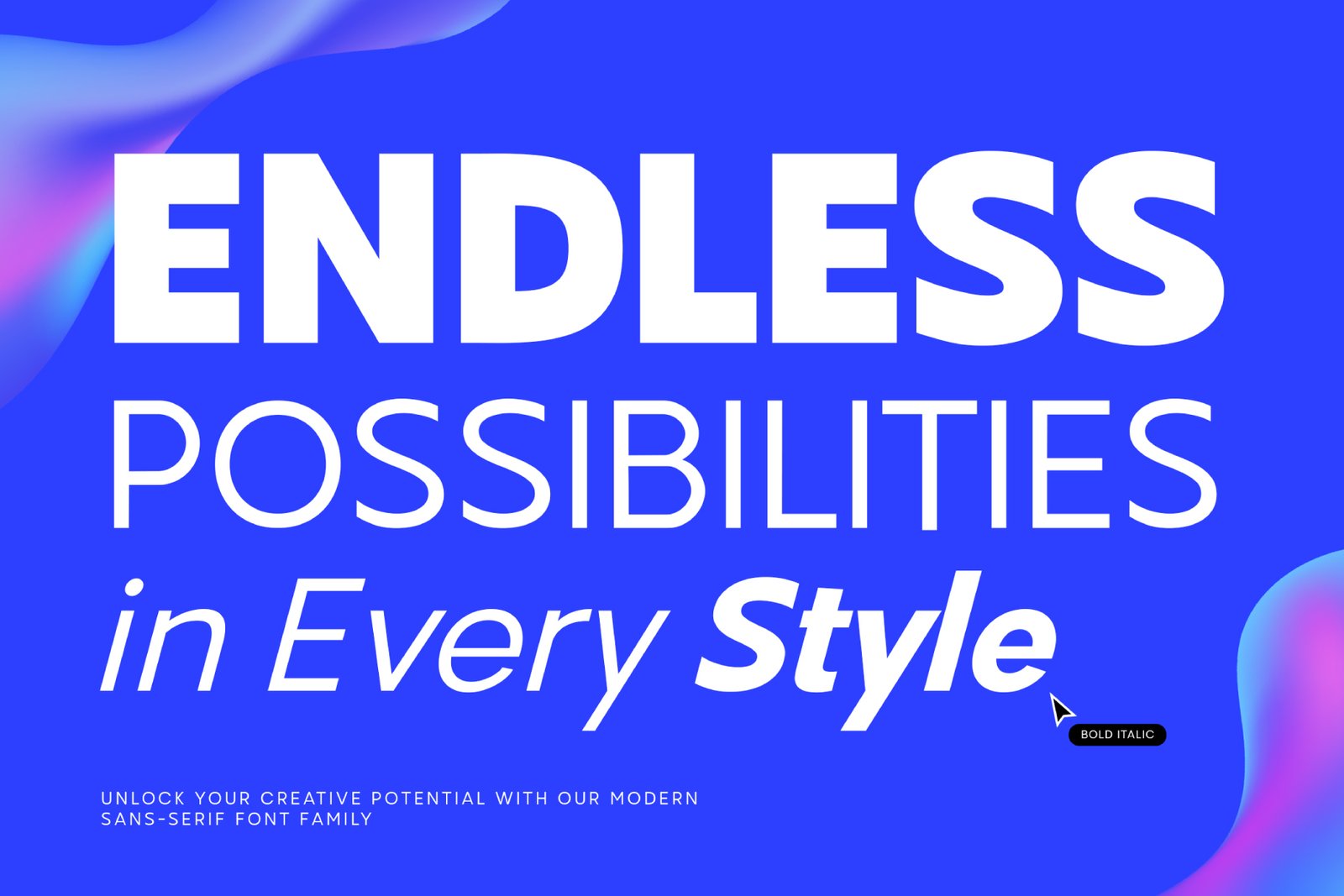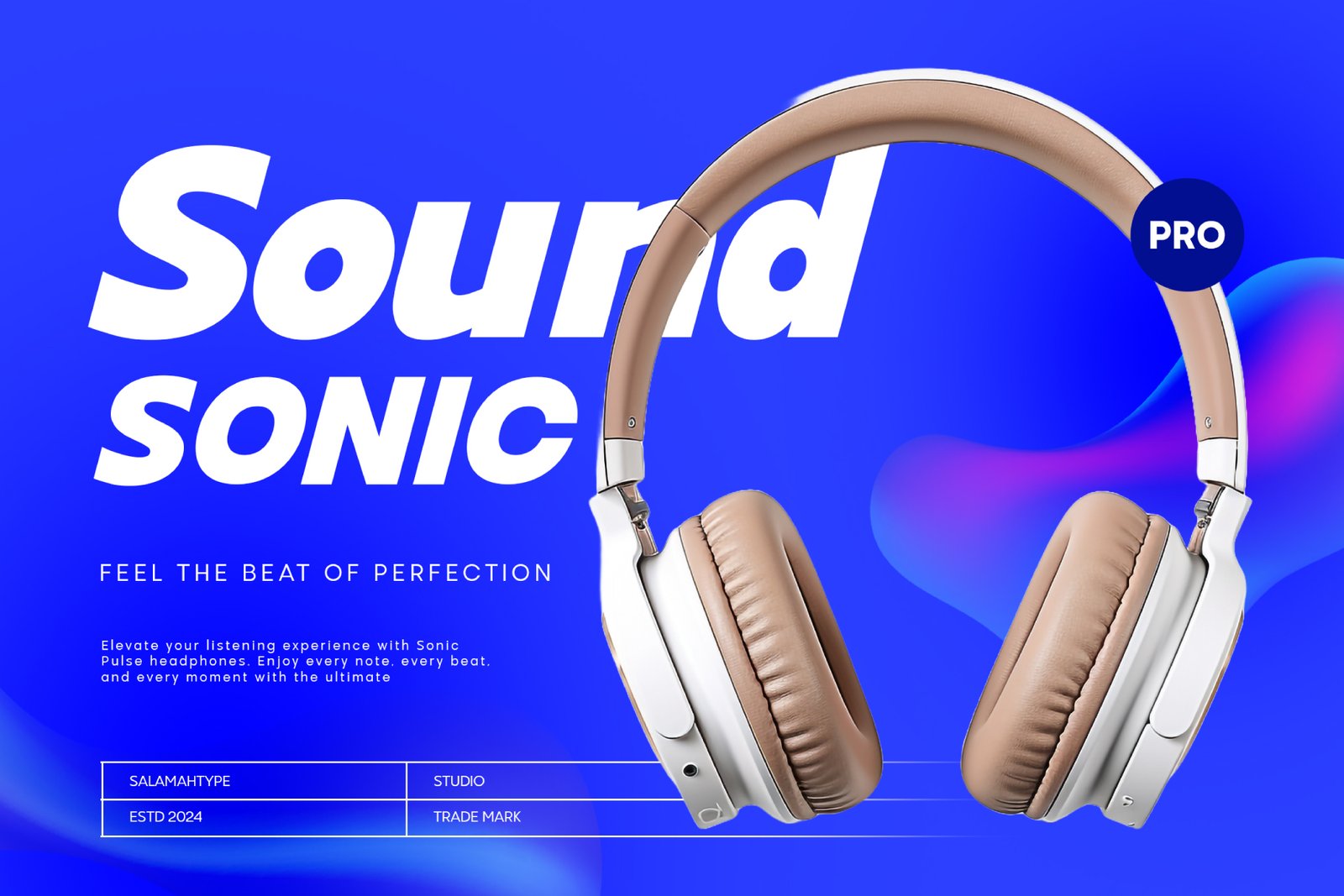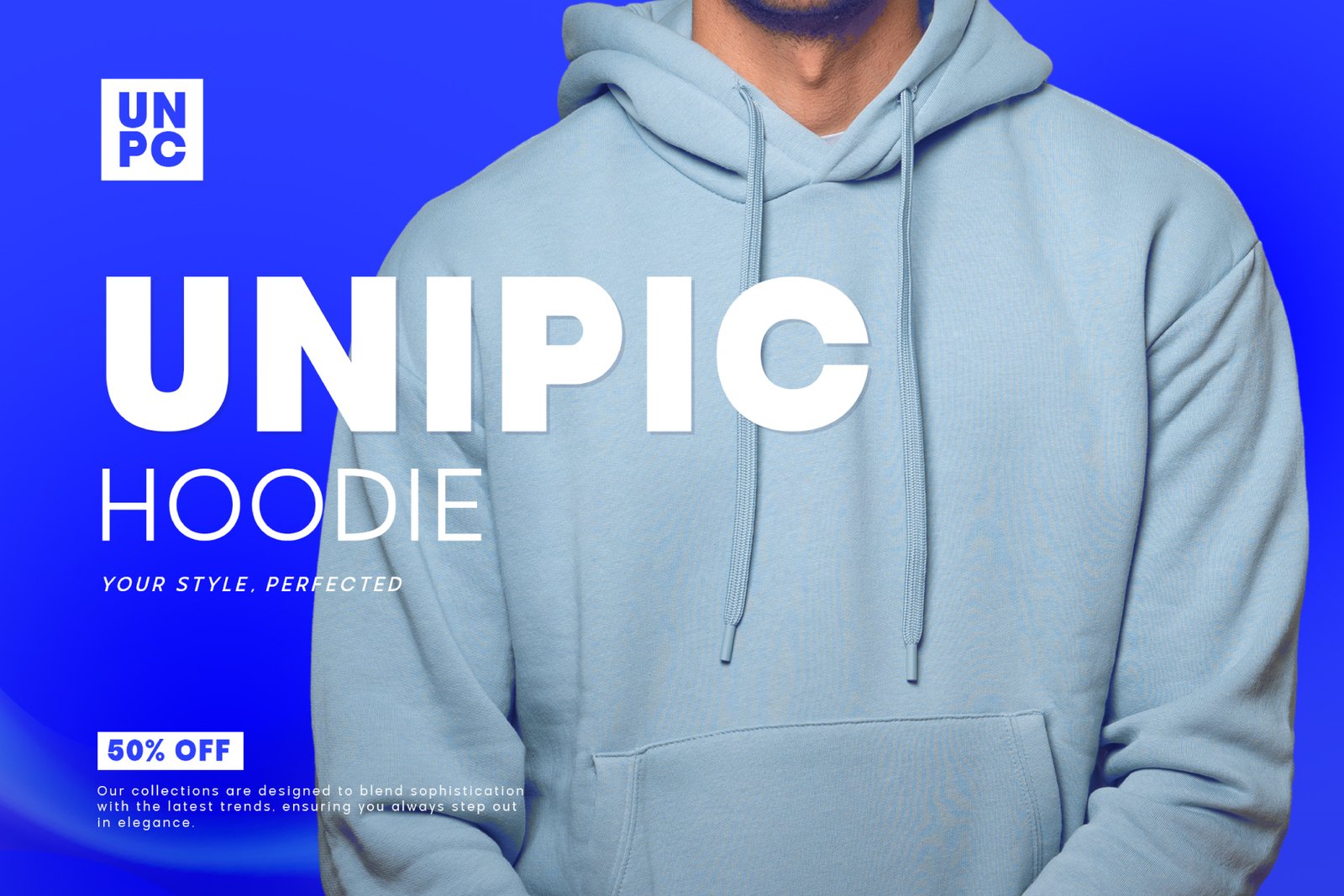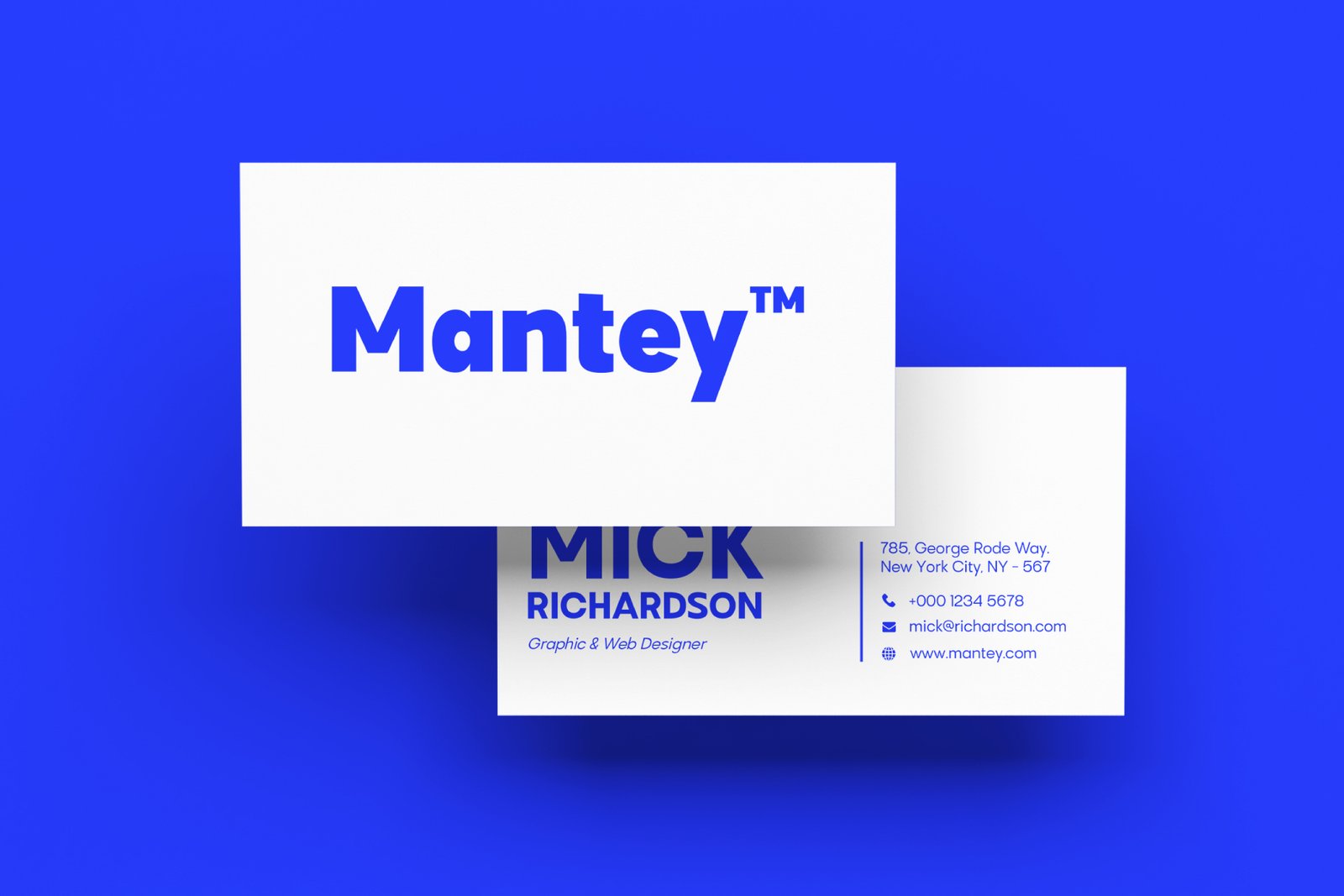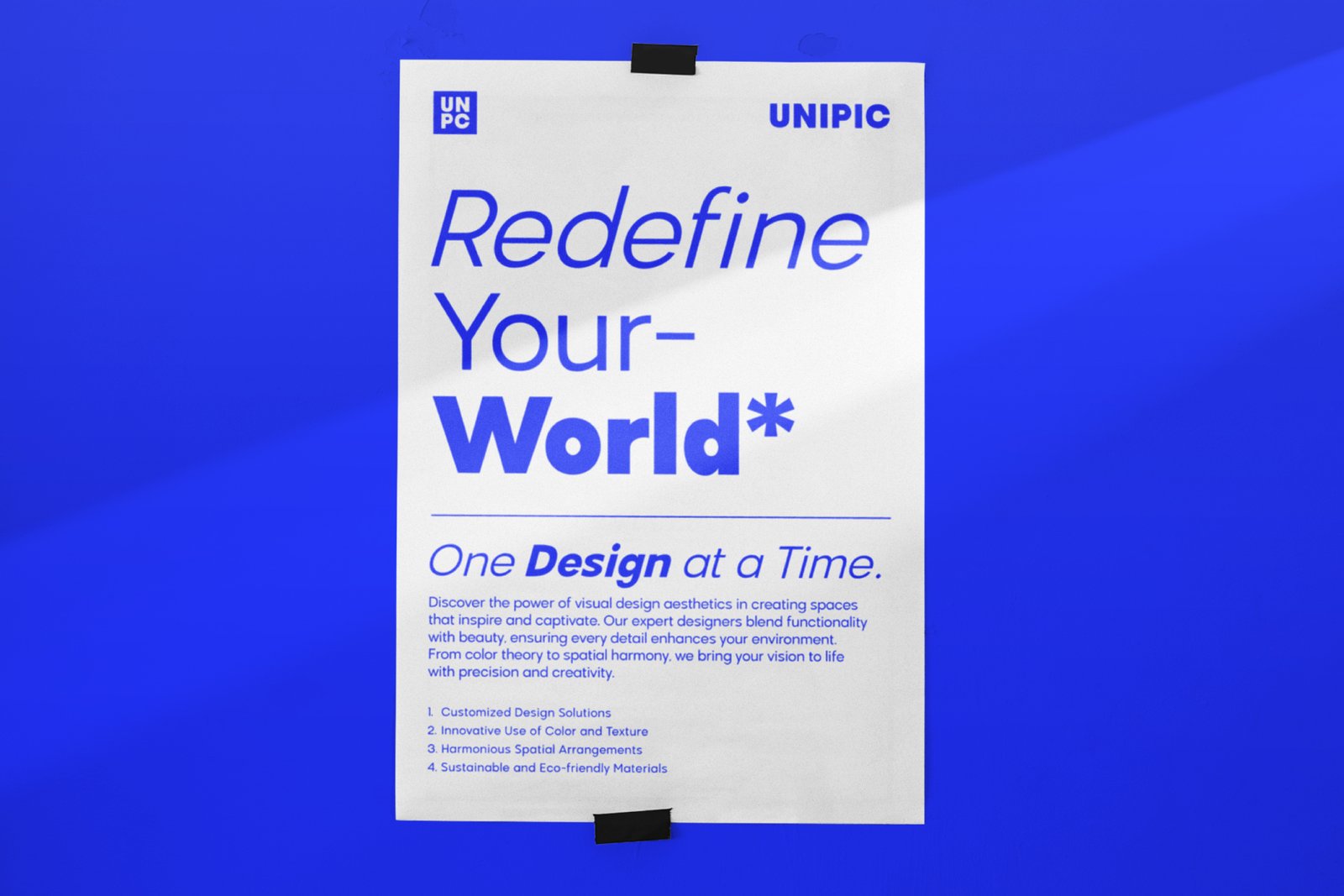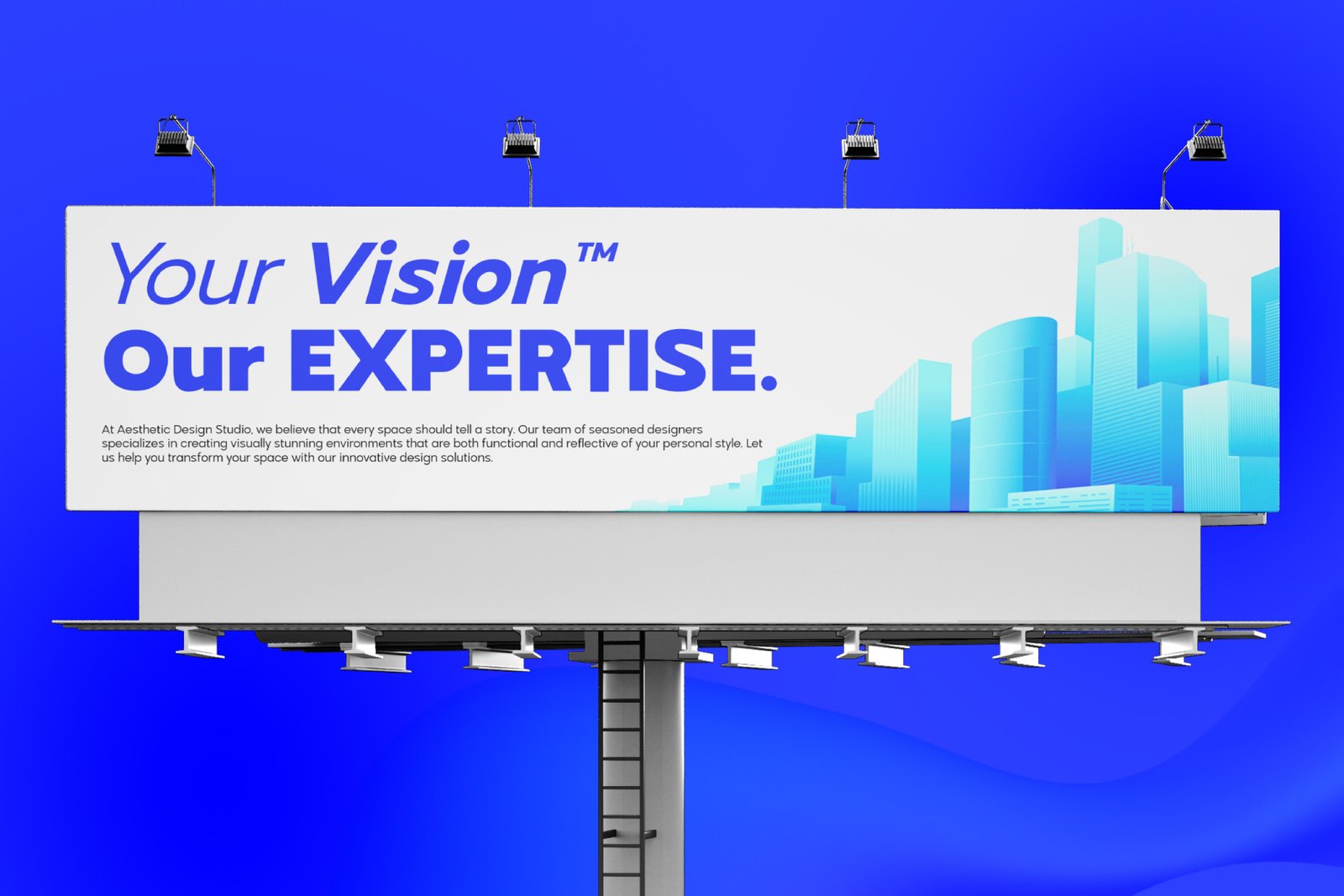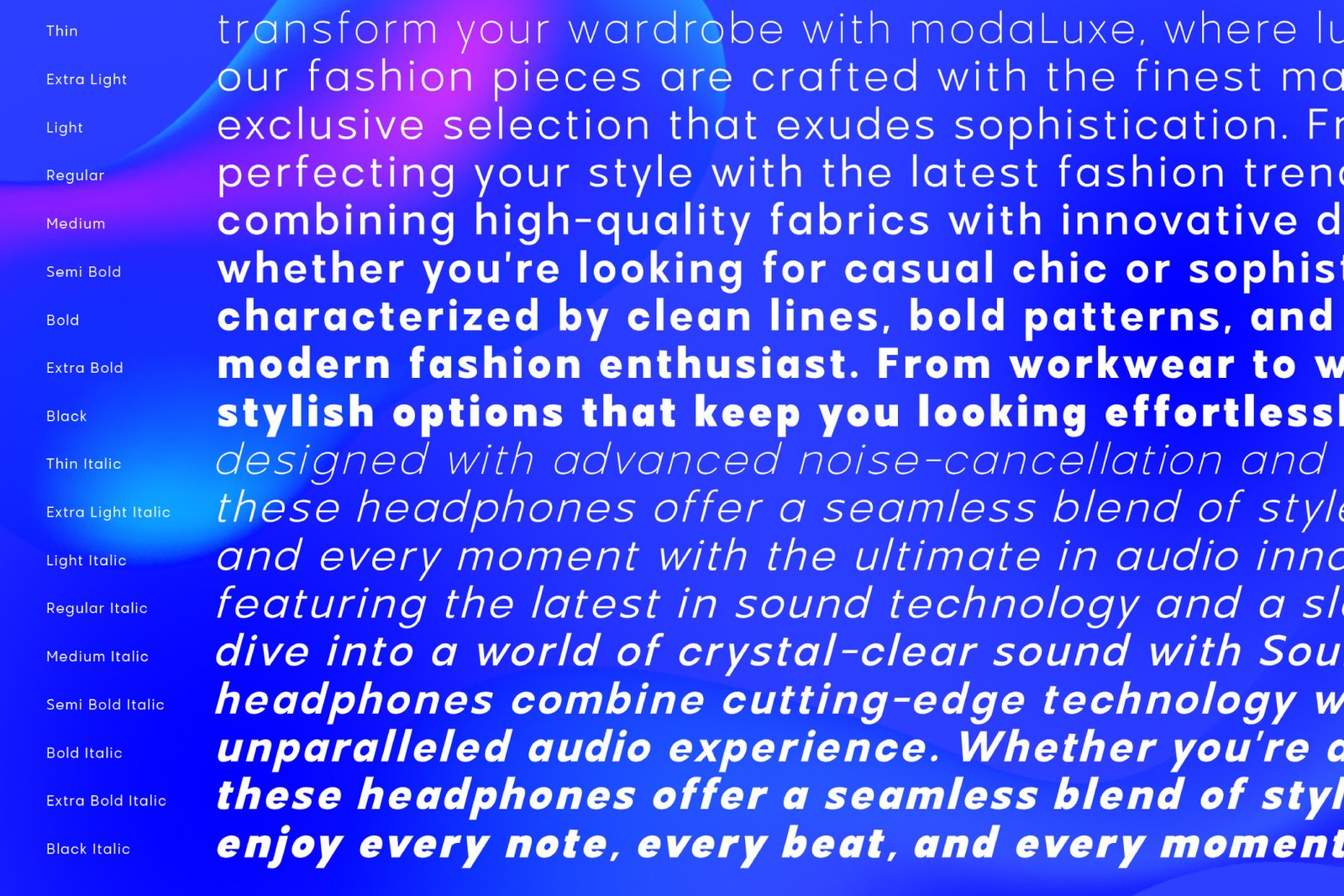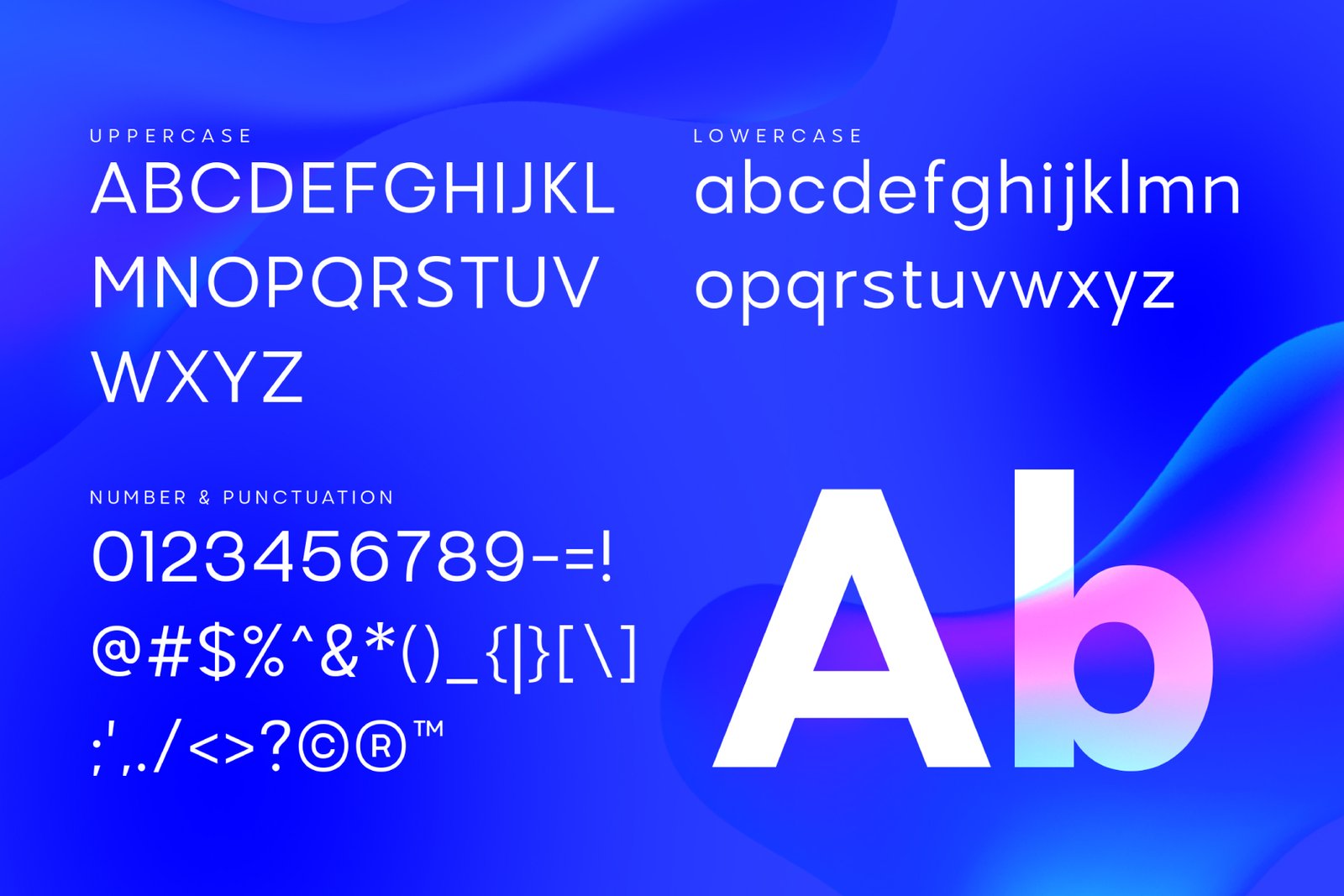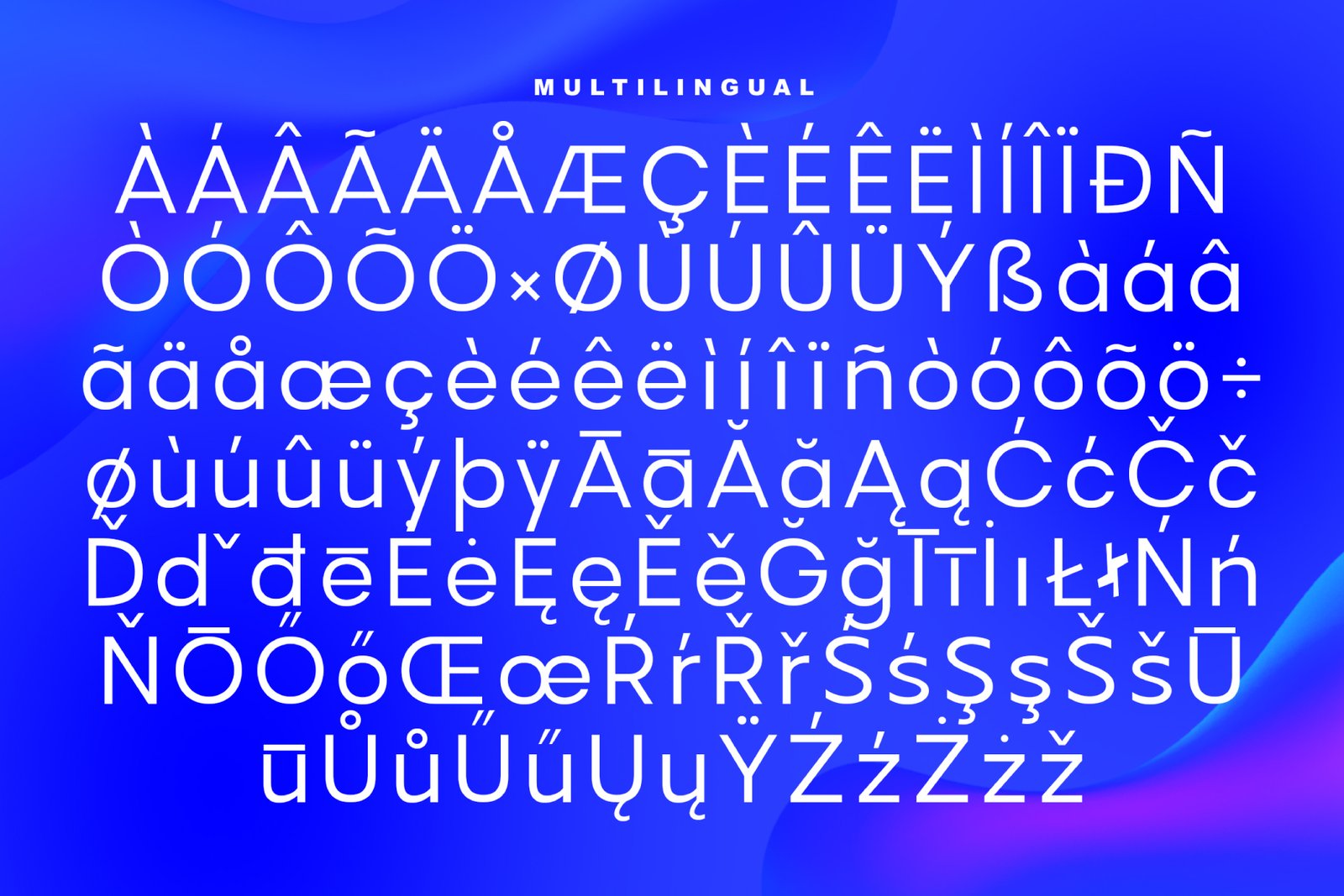
- Mantey
Mantey Sans Serif Font Family,
A versatile and comprehensive sans-serif font family designed by Aswangga from Salamahtype Studio. With its clean lines and modern aesthetic, Mantey is perfect for a wide range of applications, from logos and headlines to body text in various media. This font family includes a total of 18 fonts, featuring weights from “Thin” to “Black,” each with a corresponding italic version, providing designers with the flexibility to create visually compelling content.
Mantey boasts a total of 396 glyphs, ensuring comprehensive character coverage and typographic flexibility. It supports multilingual Latin Pro with coverage for 89 languages, including but not limited to Afrikaans, Albanian, Basque, Catalan, Danish, Dutch, English, French, German, Italian, Portuguese, Spanish, Swedish, and many more. This extensive language support makes Mantey an excellent choice for global brands looking to maintain a consistent typographic style across different regions.